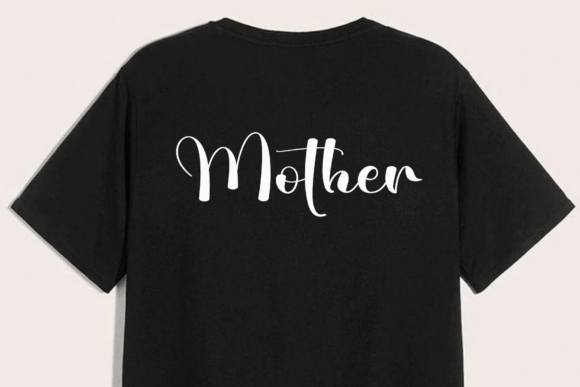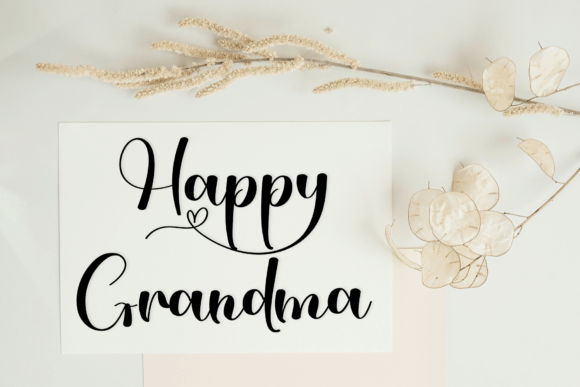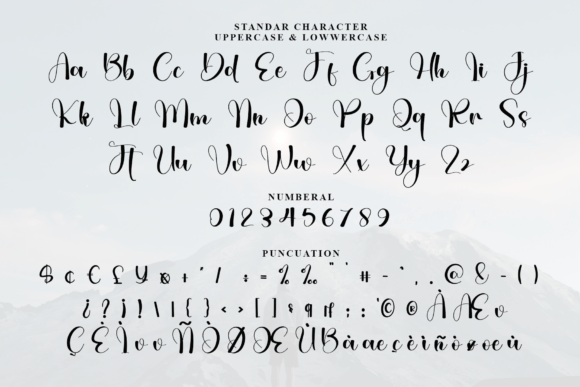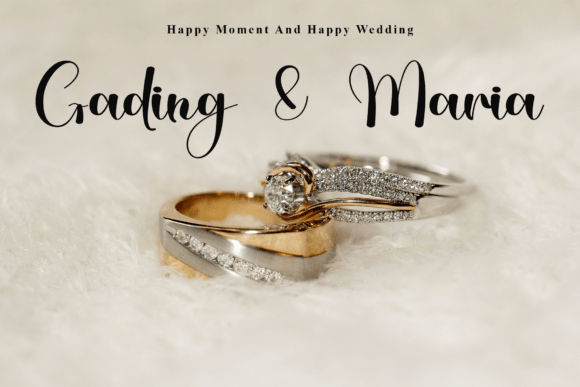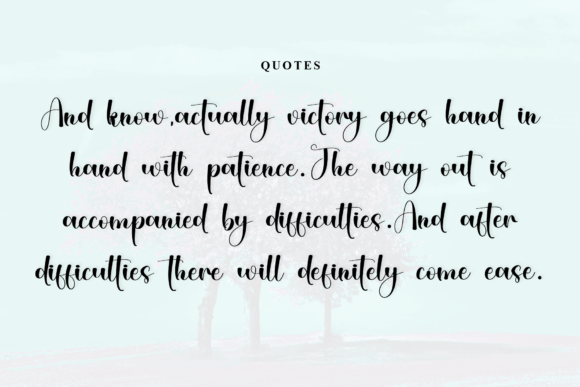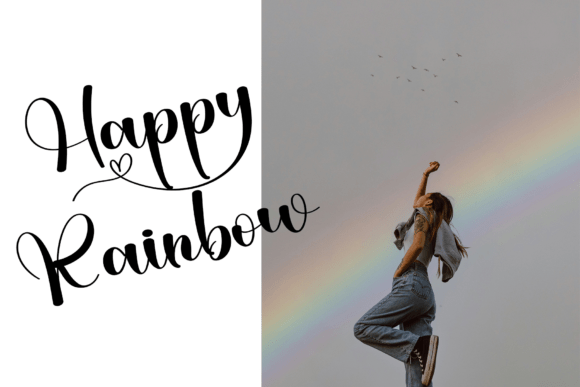
Introduction to Magical Harmony Font
Magical Harmony is a sweet and cursive handwritten font.
This gentle font will look gorgeous on a variety of design ideas It will add a joyful and romantic touch to each of your projects.
Key Features of Magical Harmony Font